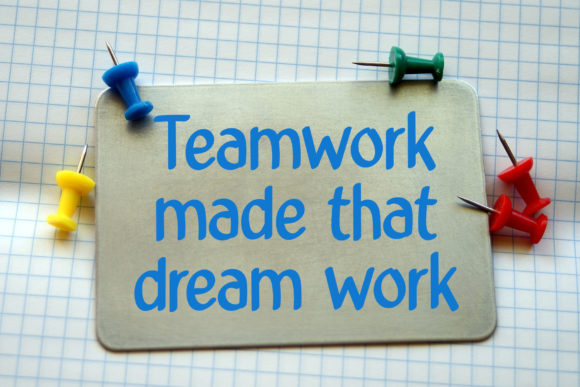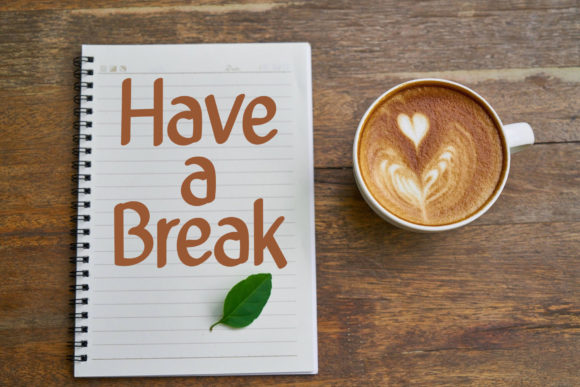
Skinny Tumbler Font
db-ku.com - Script & Handwritten -- Skinny Tumbler is a simple, friendly and neat handwritten font. Add it confidently to your projects, and you will love the results.